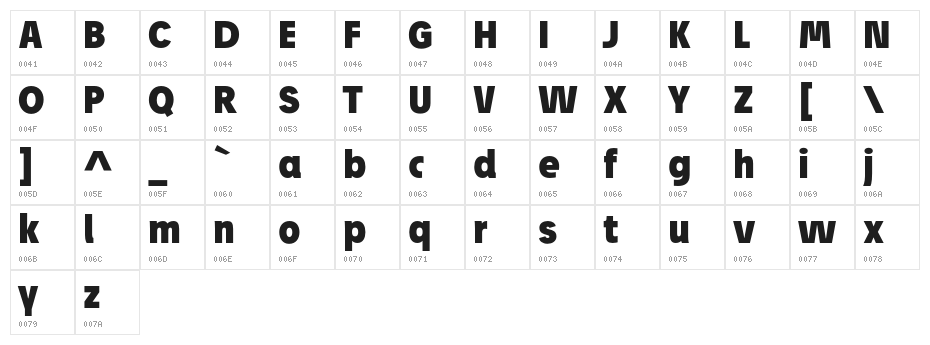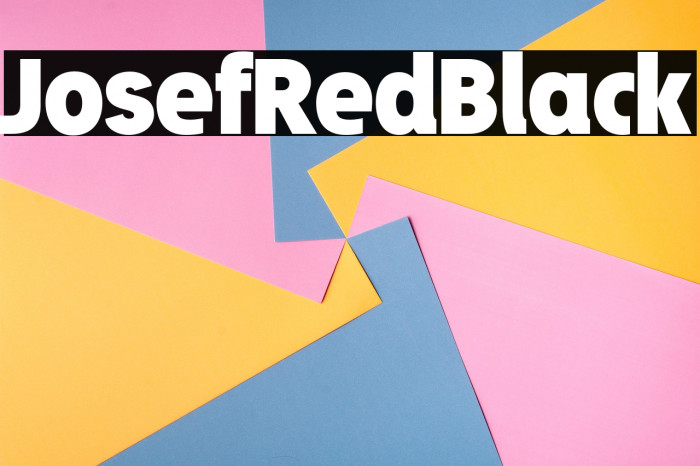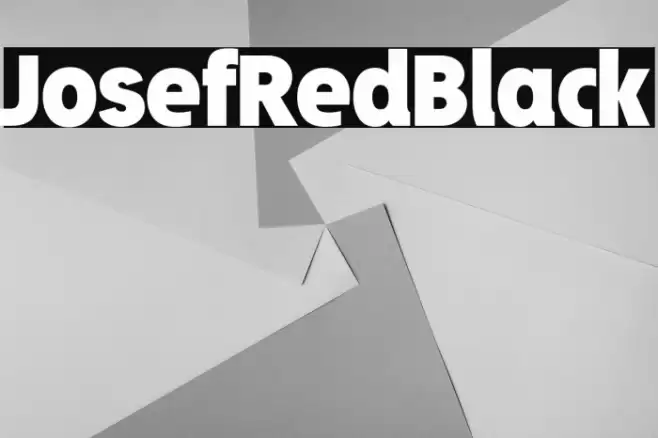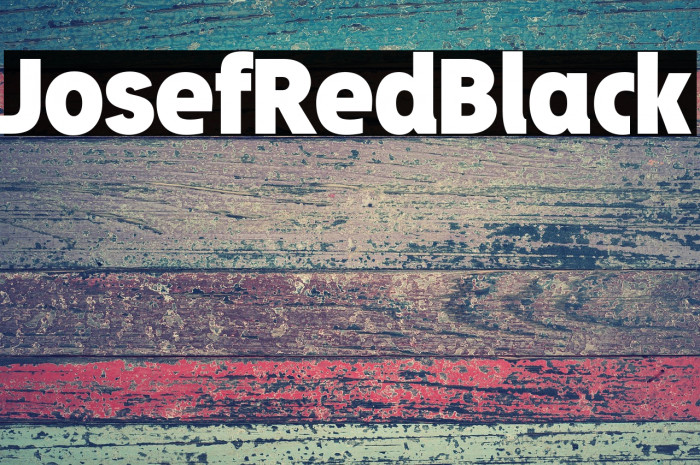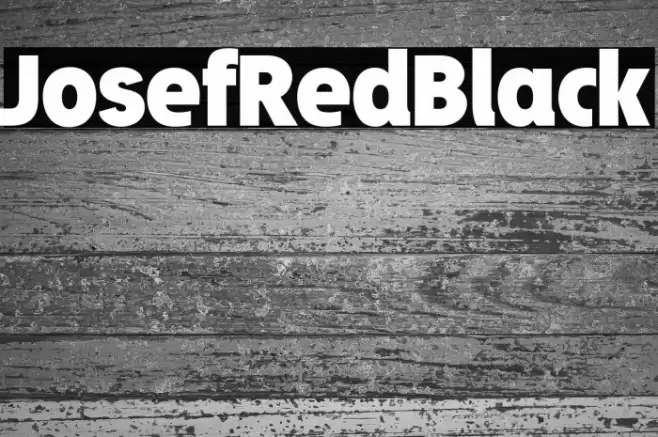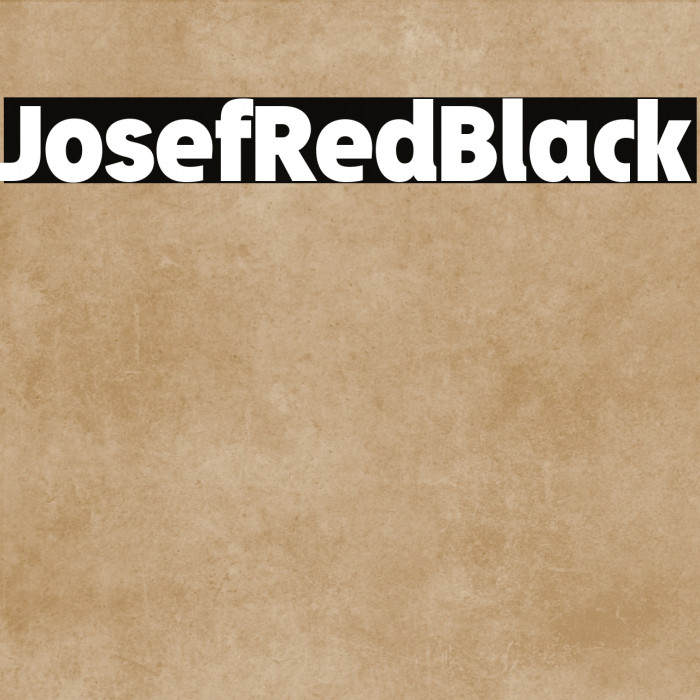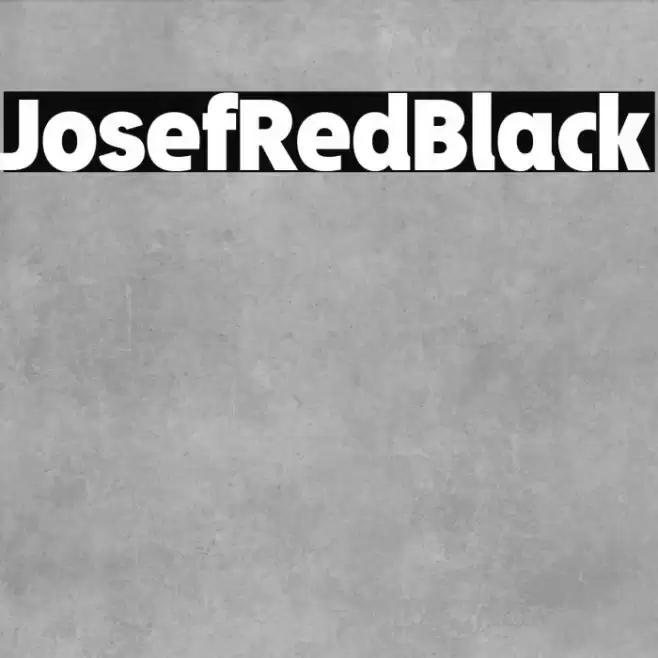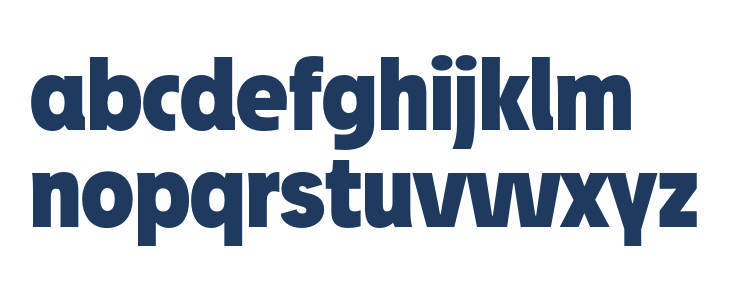
JosefRed-Black Font
JosefRed-Black Description
This font features bold, geometric letterforms with a strong presence. The characters are constructed with uniform stroke widths, giving it a solid and robust appearance. The uppercase letters are particularly striking, with a consistent height and width that create a sense of stability and balance. The lowercase letters maintain the same boldness, ensuring readability and impact. The overall design is clean and modern, making it suitable for a variety of applications where clarity and emphasis are needed. The font's simplicity and strength make it a versatile choice for both digital and print media.
| Proposed Projects | Ideal for headlines, posters, branding, and advertising materials. |